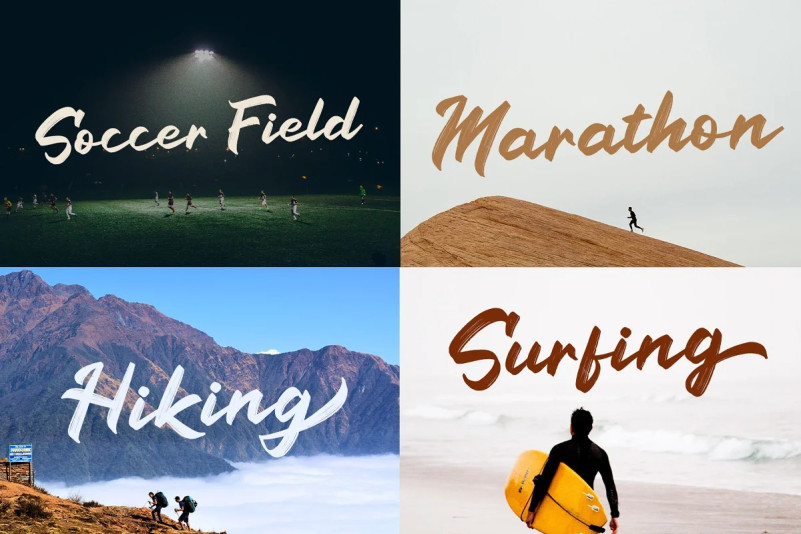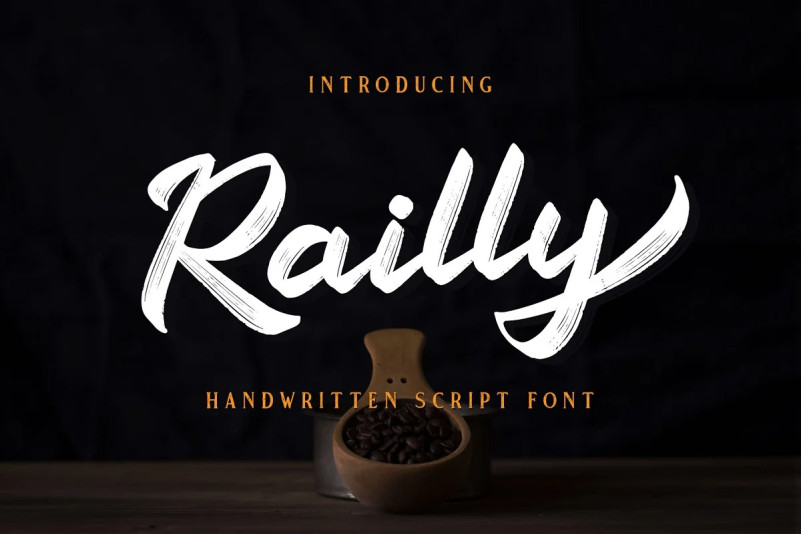
Railly Font
Railly Font – Handwritten Script Font is an brush script font based on the expression of real handwriting. Railly – Handwritten Script Font will work perfectly for fashion, e-commerce brands, trend blogs, wedding boutiques or any business that wants to appear upscale and chic.
Railly – Handwritten Script Font also Suitable for Logo, greeting cards, quotes, posters, branding, name card, stationary, design title, blog header, art quote, typography, art, modern envelope lettering or book design, happening style like handdrawn design or watercolor design theme, craft design, any DIY project, book title, or any purpose to make your art/design project look pretty and trendy.